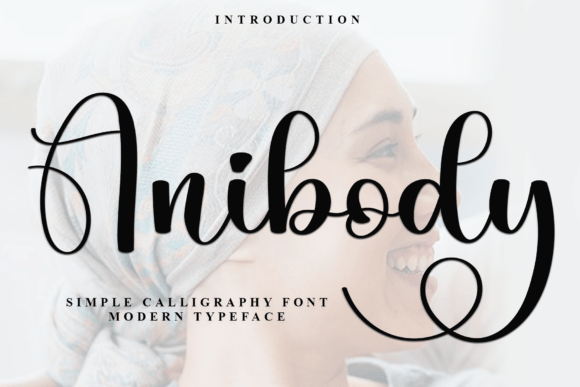
The Quest for the Perfect Font: Discovering Anibody
I still remember the frustration of working on a design project, hours spent crafting the perfect layout, only to be held back by one thing: the font. It was 2019, and I was working on a branding project for a local coffee shop. My client was specific about the feel they wanted to convey – warm, inviting, and unique. I scoured font libraries, but nothing seemed quite right. That was until I stumbled upon Anibody, a beautiful and eye-catching font that would change the game for me and, I suspect, for many designers, crafters, and creative hobbyists out there.
First Impressions: What Makes Anibody Special
Anibody is designed with a soft, unique touch that immediately captures attention. Its distinctive strokes give it a special character, making it not only meaningful but also incredibly versatile for future use. Whether you’re working on design projects, crafts, or other creative works, Anibody offers a wide range of characters to play with. This versatility is one of its strongest suits, making it perfect for various applications, from digital media to print.
Let’s get down to business – what I love about Anibody:
• ✨ Unique Aesthetic: The font’s soft and distinctive strokes offer a fresh look that stands out from more traditional fonts.
• ✅ Versatility: With a wide range of characters, Anibody can be used across various projects and platforms.
• 🌟 Emotional Connection: The font has a way of making designs feel more approachable and warm, perfect for brands looking to connect with their audience on a personal level.
And, of course, no font is perfect. A couple of things to keep in mind:
• 🤔 Legibility at Small Sizes: Like many unique fonts, Anibody may lose some legibility when used at very small sizes. It’s best used at larger sizes where its features can shine.
• ⚠️ Compatibility Issues: While Anibody is compatible with a wide range of applications, there might be some limitations with older software versions. Always test the font in your specific application before finalizing your design.
The Story Behind Anibody
While the exact origins of Anibody might not be well-documented, it’s clear that the font was created with a passion for unique design. The designer, likely inspired by the need for fonts that convey warmth and approachability, crafted Anibody to fill that gap. The result is a font that feels both modern and timeless.
Is Anibody suitable for body text? While Anibody is stunning, its uniqueness might make it less ideal for long body texts. It’s best used for headings, titles, or short paragraphs where its features can stand out.
Anibody is more than just a font – it’s a design tool that can elevate your projects, making them more engaging and unique. Its versatility, combined with its distinctive look, makes it a valuable addition to any designer’s toolkit. Whether you’re working on a branding project, crafting a handmade card, or simply exploring your creativity, Anibody is sure to inspire.